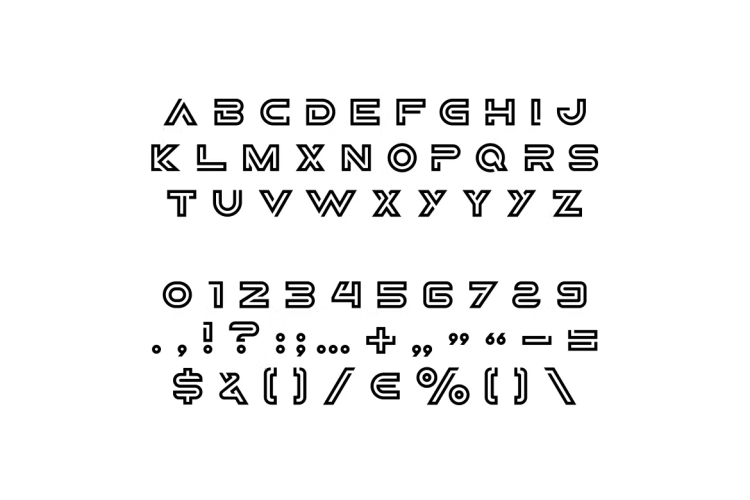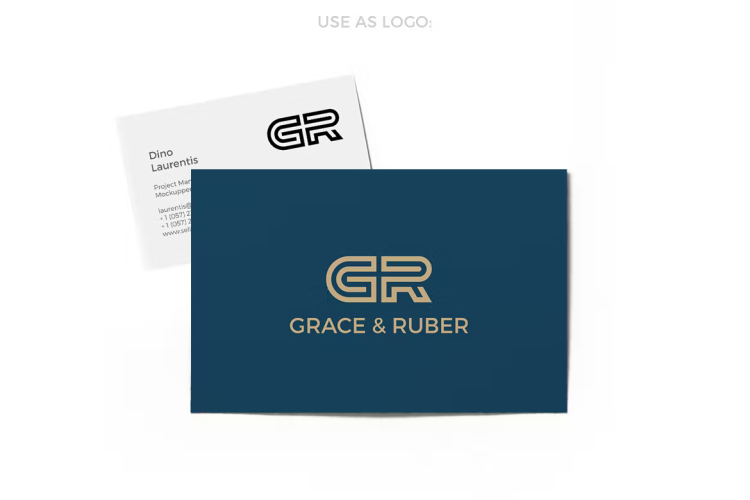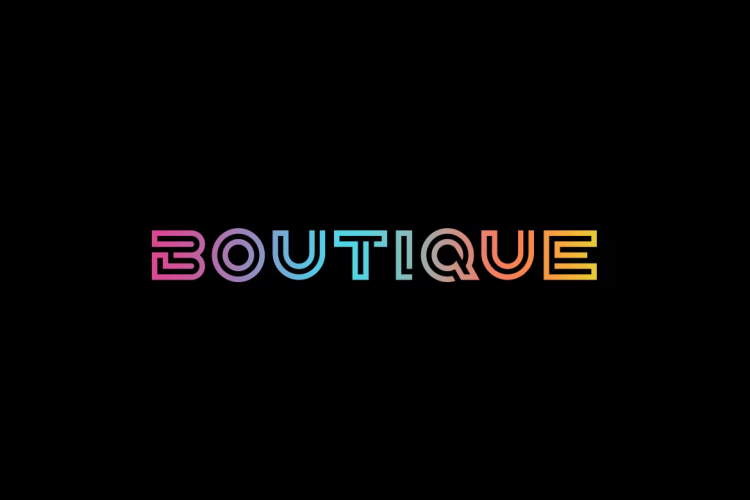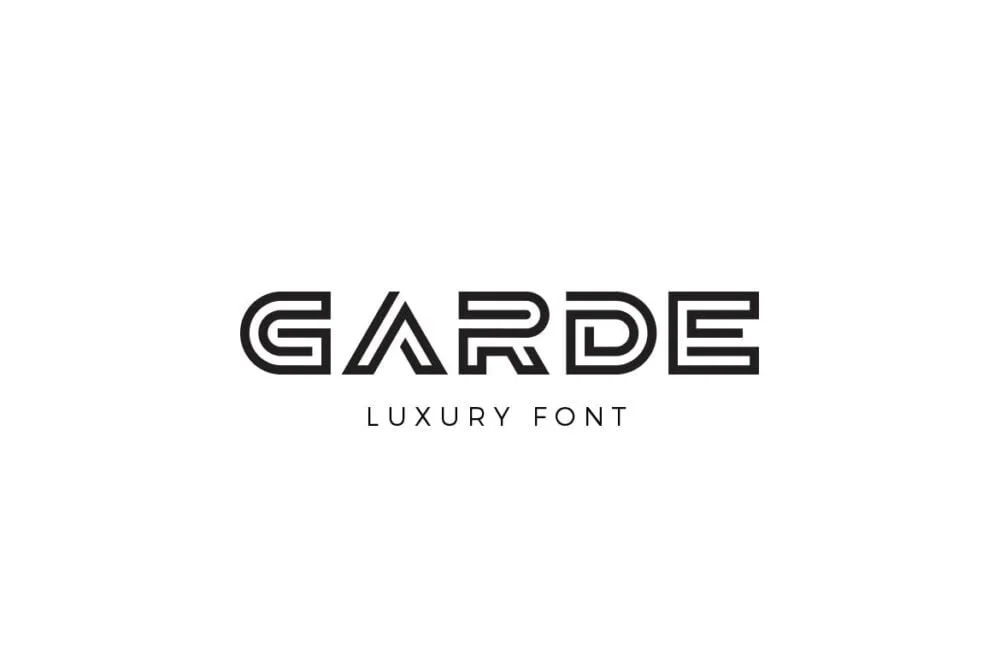
Garde Font
Garde Font is stylish creative font useful for creating titles, monograms, logos in such areas as Beauty, Fashion, Jewelry, Luxury, Corporate business.
Where Garde Font works best
Seasonal campaigns
Garde Font gives a holiday or themed promotion its own look without redrawing anything; use it for the headline only.
Party and family invitations
Decorative letters set the mood before the text is read. Pair Garde Font with a plain sans for the practical details.
Game and video titles
Themed lettering sells the world of a game or a channel in one frame.
What kind of work does Garde Font suit?
It sits in the Decorative Fonts group and reads as branding, corporate, creative, decorative. That makes it a candidate wherever those qualities help: headings, packaging, social graphics and brand work. Set it at the size you plan to use before deciding.